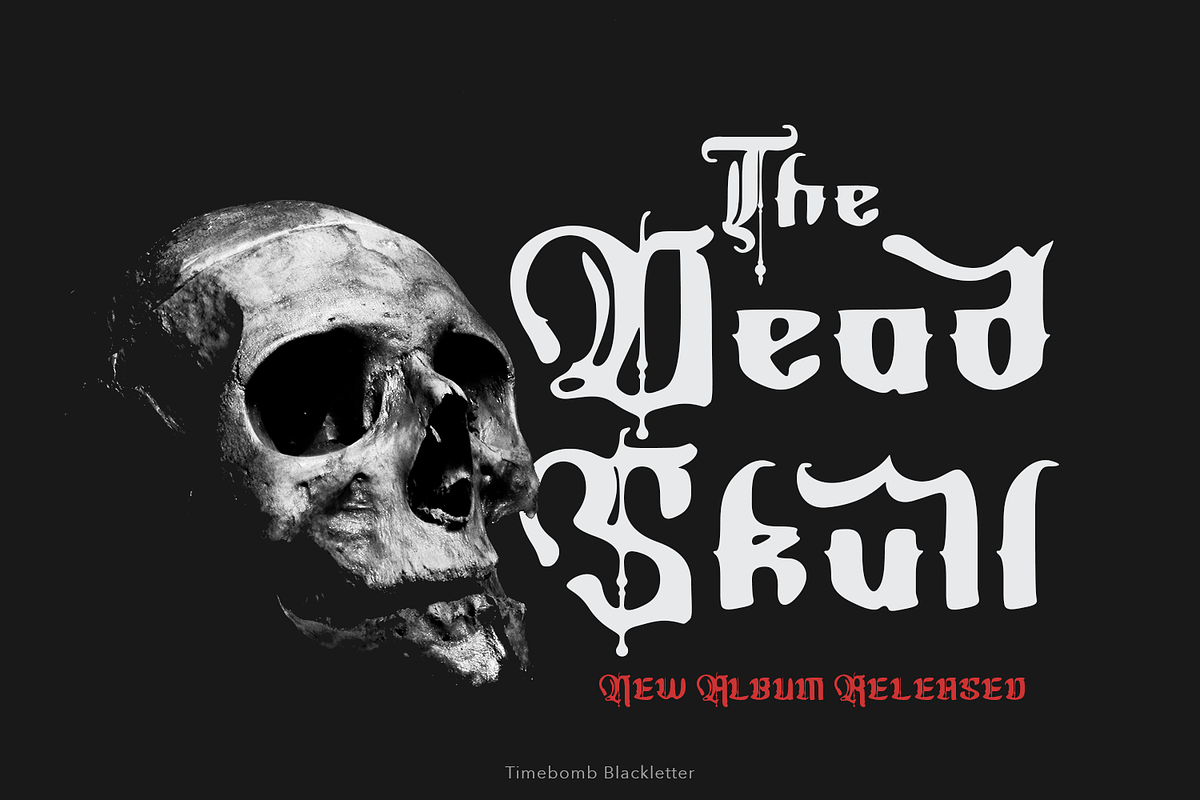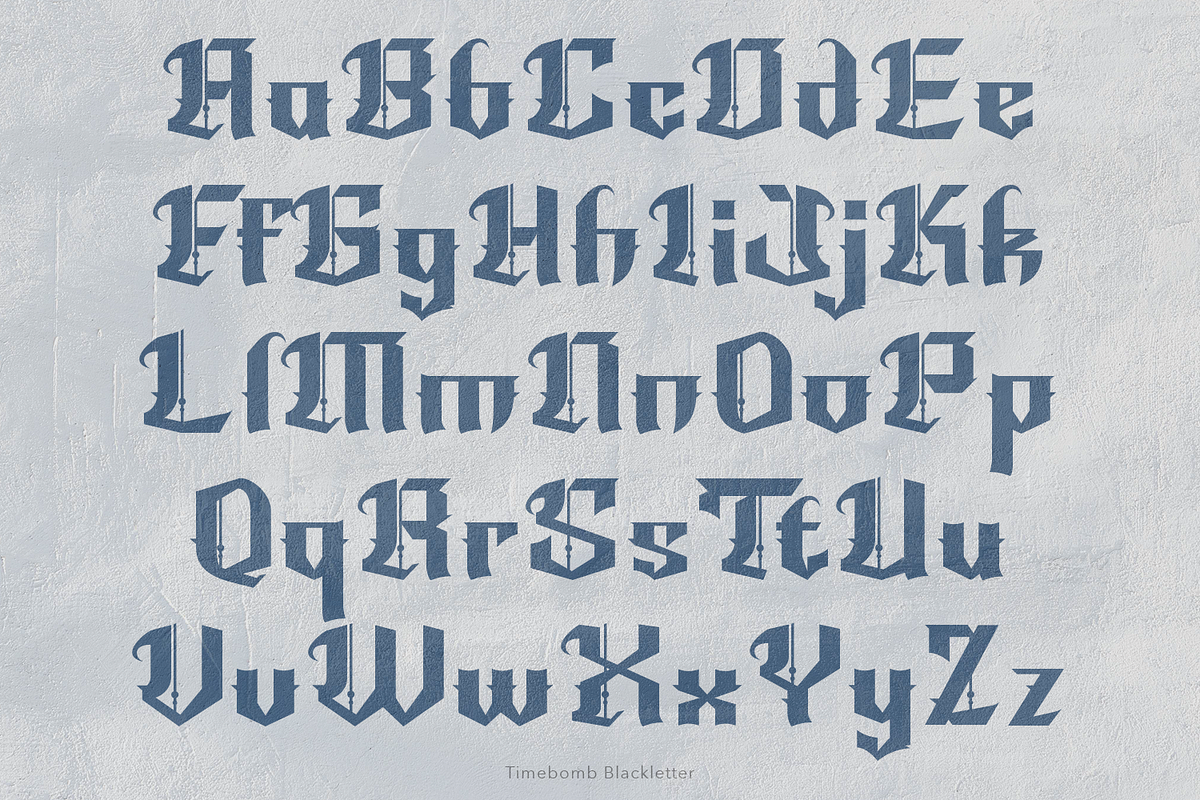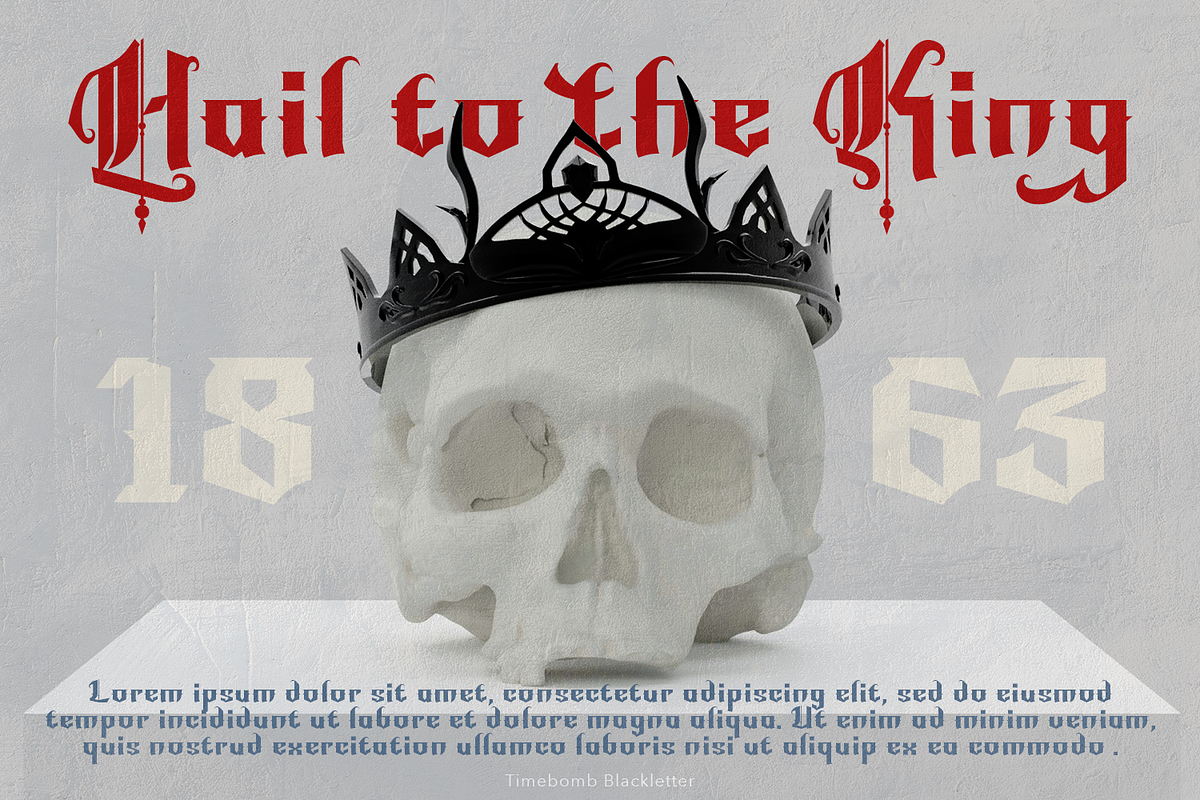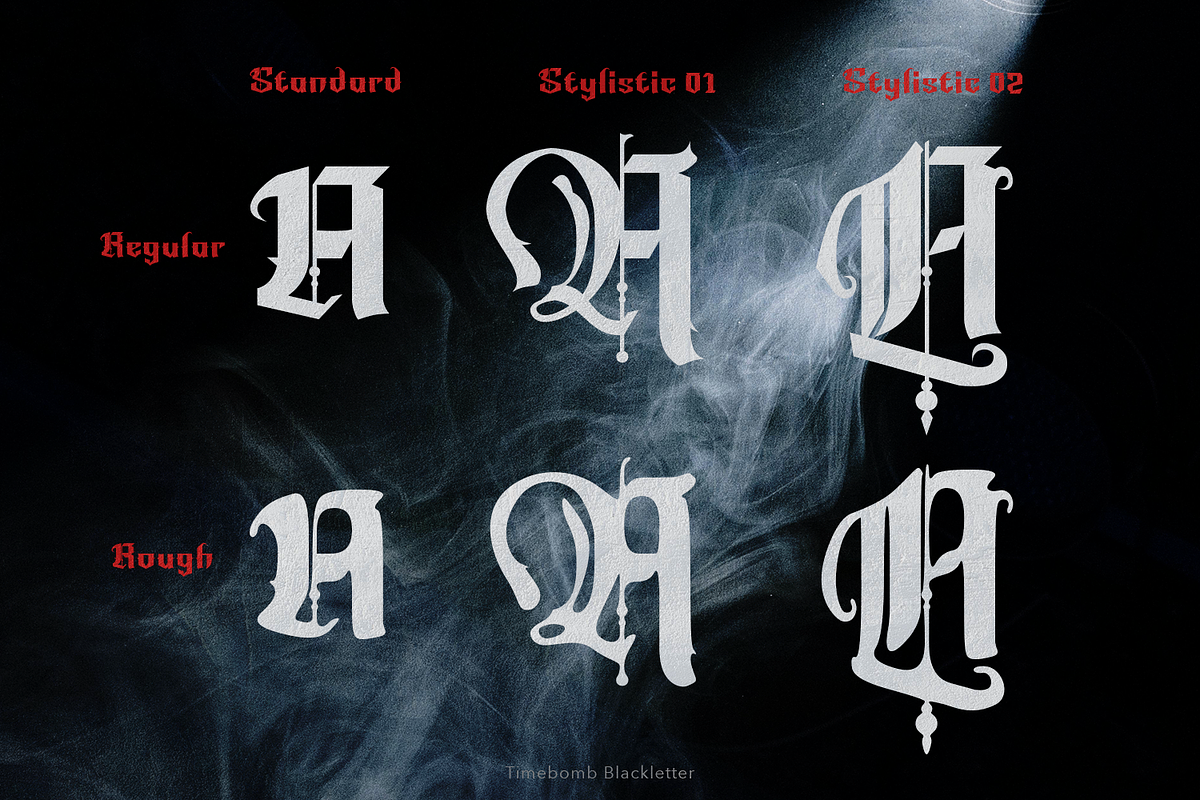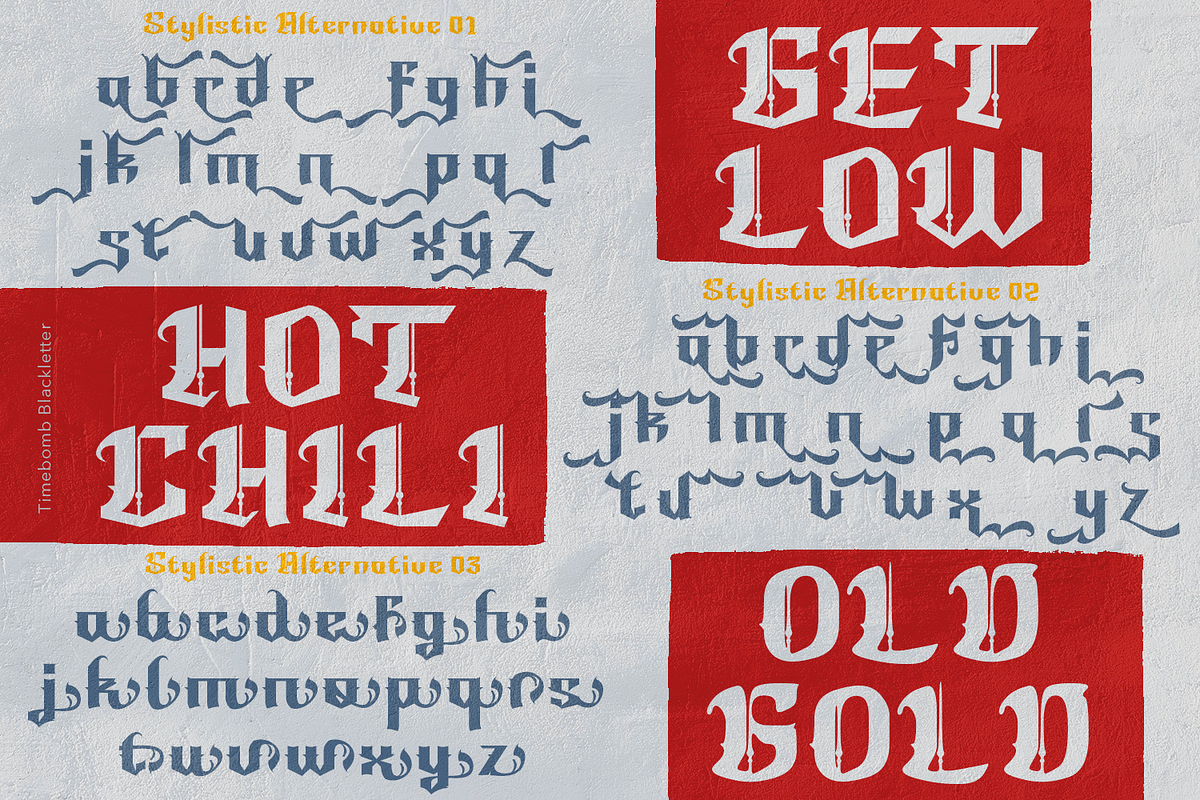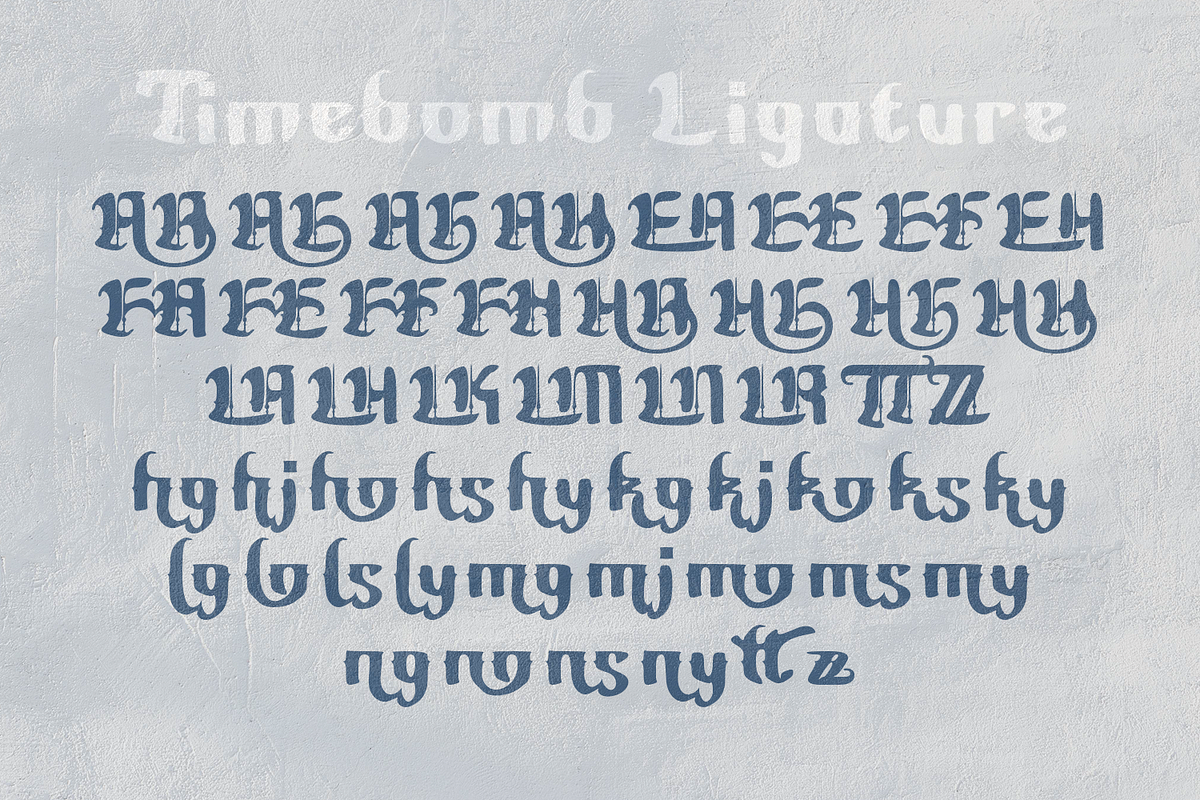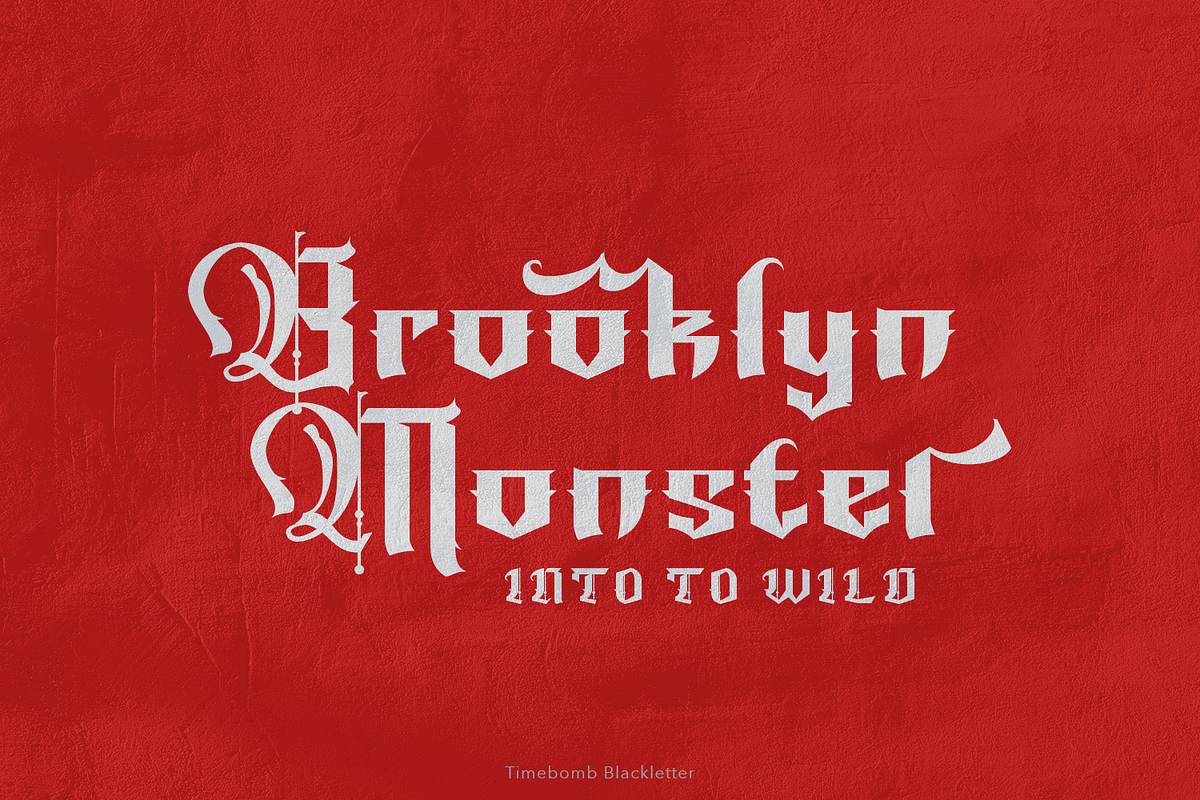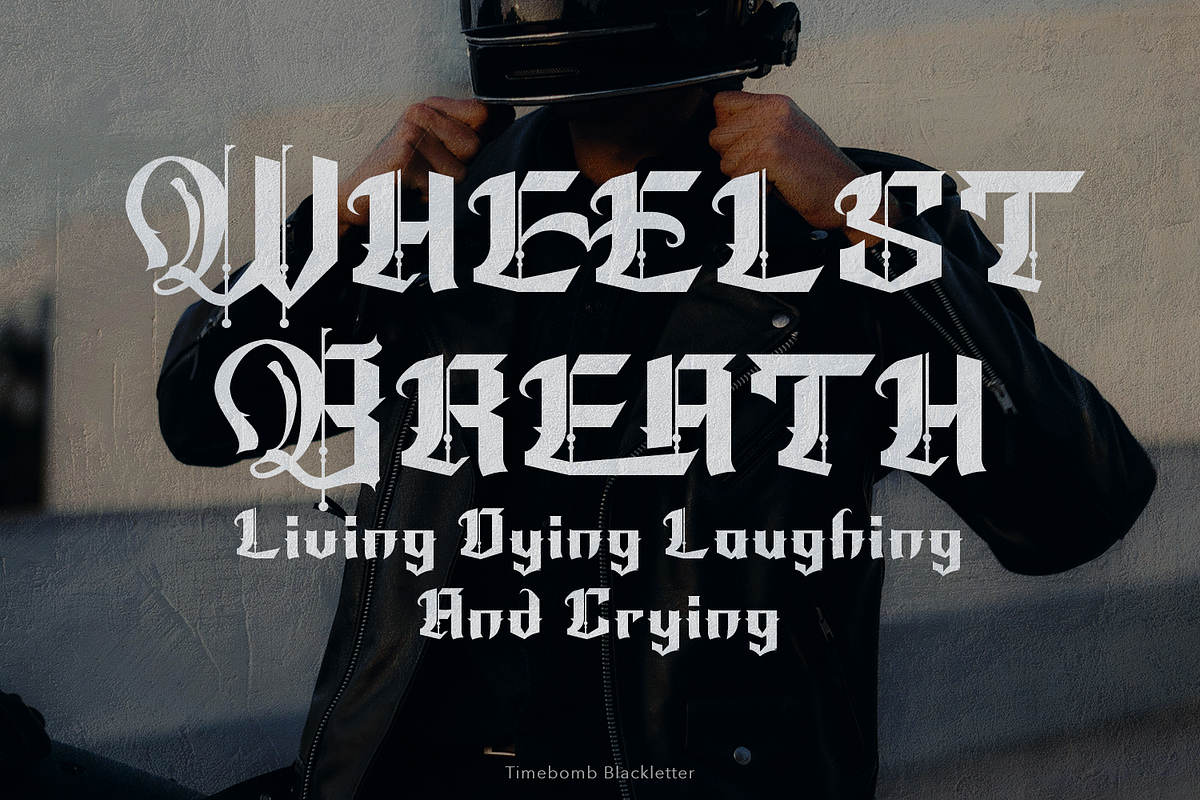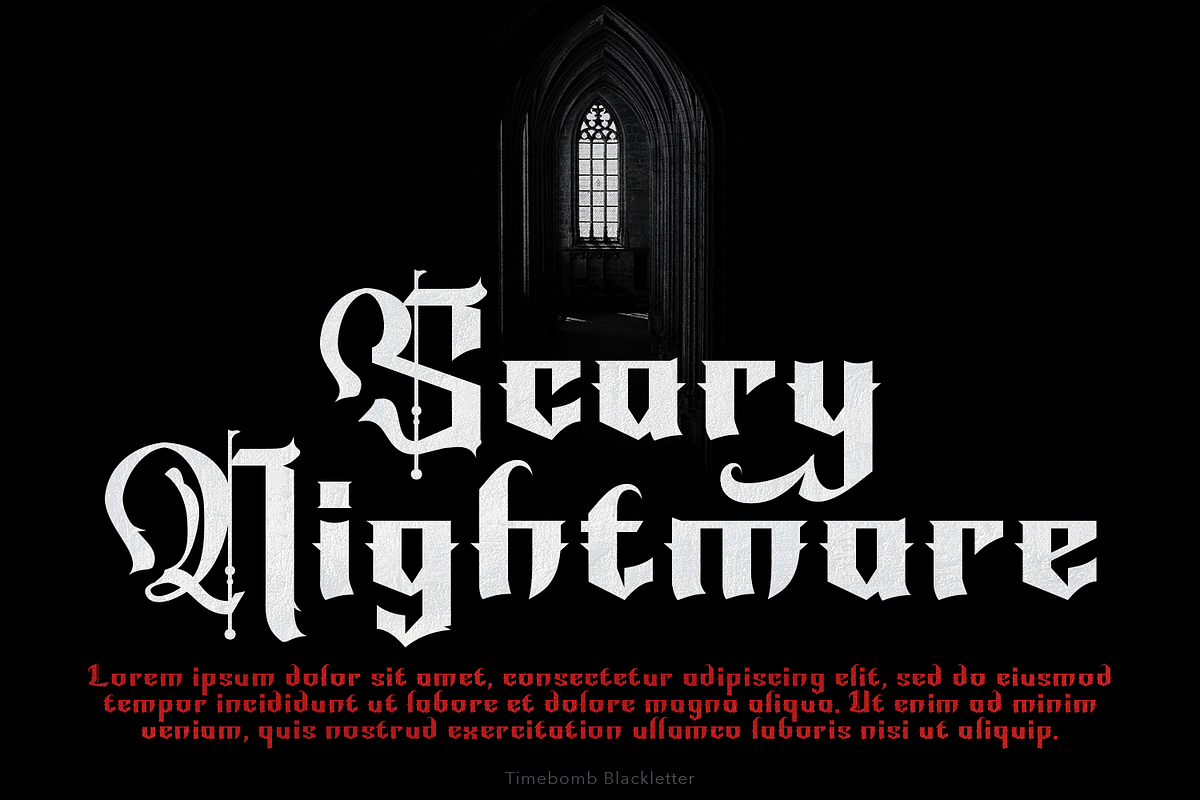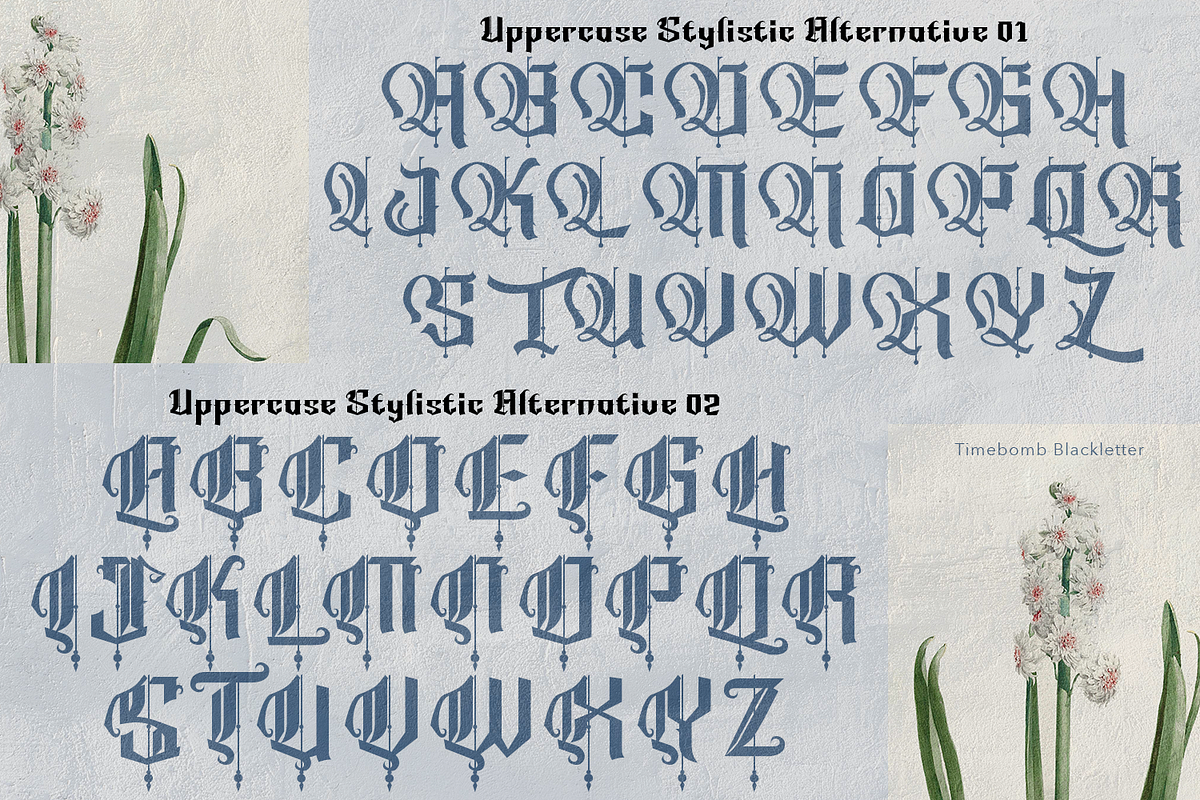
Timebomb Blackletter
Timebomb is a modern Blackletter display font with alternates that have a strong flair. Come with regular and rough versions, an ideal choice for tattoo shops, drink labels, clothing labels, band logos, fashion apparel, book covers, game design, packaging design and many more.